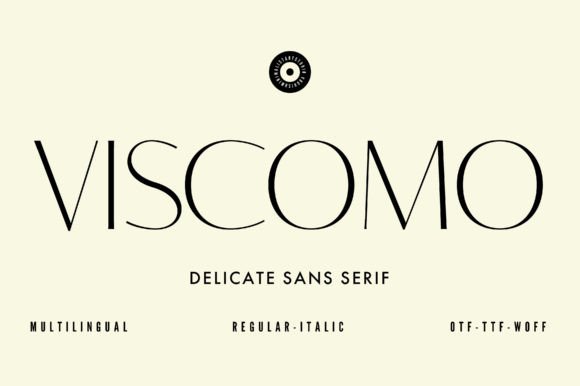
Introducing Viscomo, the minimalist sans serif typeface that exudes modern elegance and sophistication. Its delicate strokes and timeless minimalism make it the perfect choice for logos, websites, and any design project seeking a touch of contemporary allure. Viscomo's captivating readability ensures clear communication, making it ideal for crafting sophisticated and impactful creations.
Embark on a journey of minimalist charm with Viscomo. Its clean lines and understated beauty bring a sense of order and harmony to your designs. Let Viscomo elevate your projects to new heights of visual appeal, leaving a lasting impression on your audience.
Whether you're creating logos, branding materials, or digital content, Viscomo's versatility shines through. Its adaptability to various design styles makes it a true creative chameleon, effortlessly blending with your vision. Unleash your imagination and explore the endless possibilities with Viscomo.
As a modern sans serif font, Viscomo is the epitome of sleekness and readability. Its clean, geometric forms enhance the clarity of your message, ensuring it resonates with your audience. Dive into the world of modern elegance with Viscomo and captivate your readers with its timeless appeal.
Elevate your designs with Viscomo and embrace the power of minimalist charm. Let its delicate strokes and timeless beauty transform your projects into captivating works of art. Viscomo is more than just a font; it's an expression of modern sophistication that will leave an unforgettable mark on your audience.